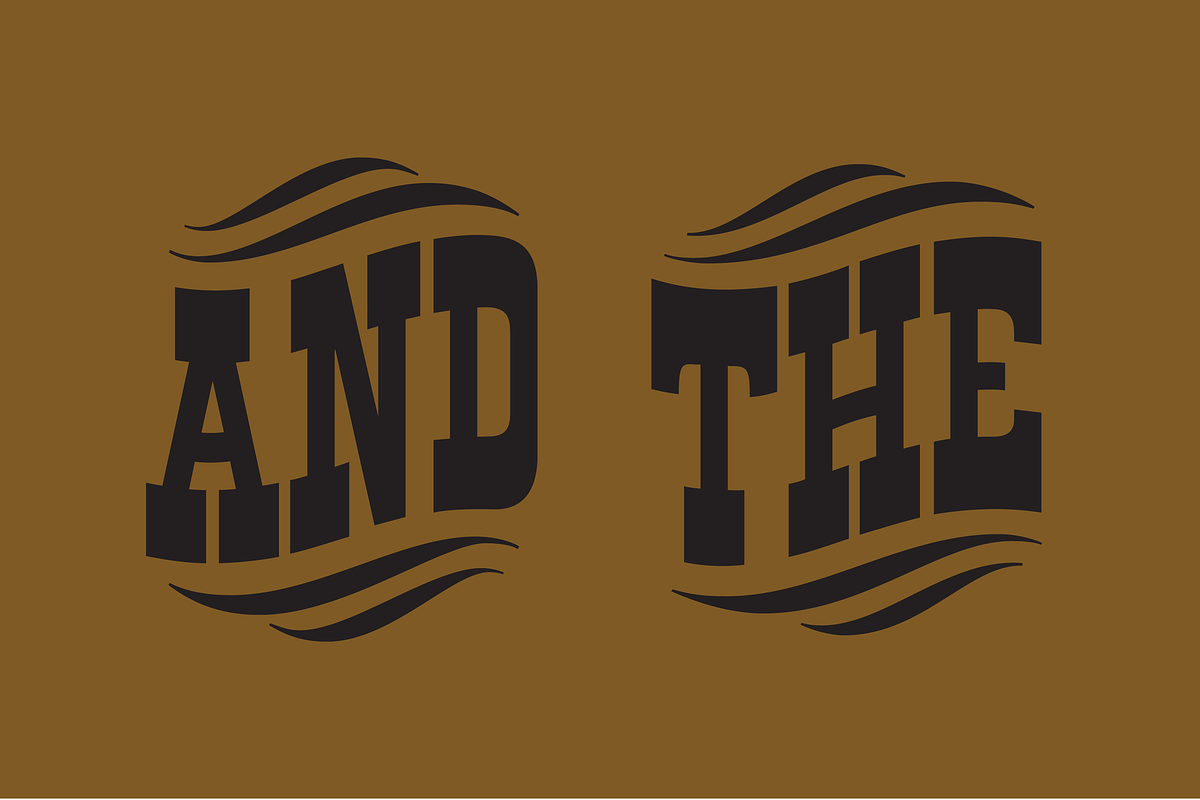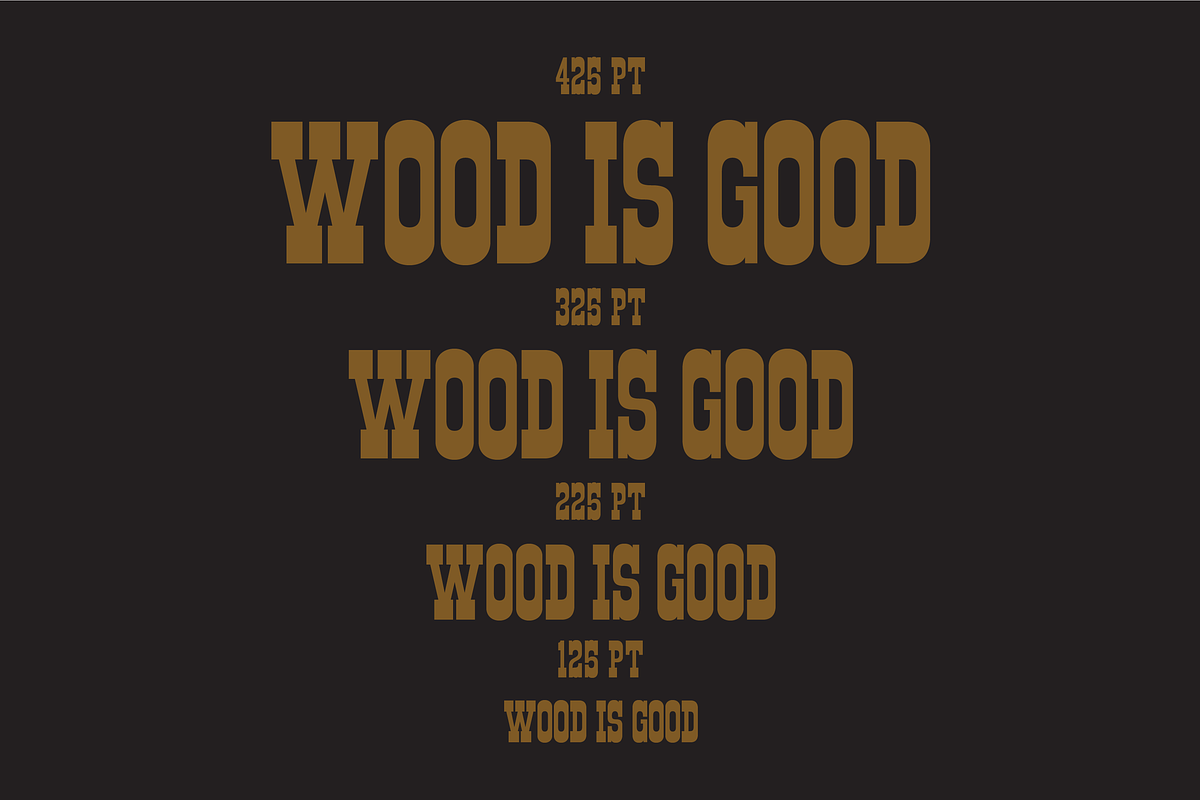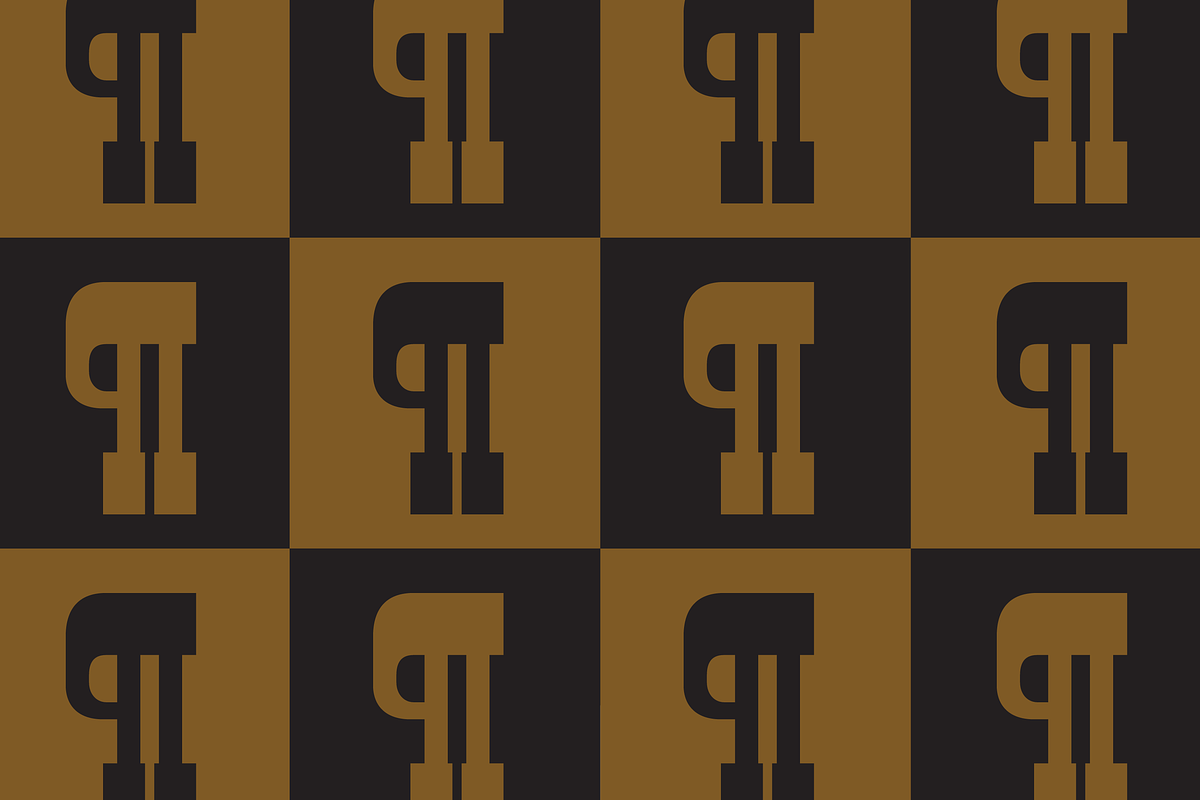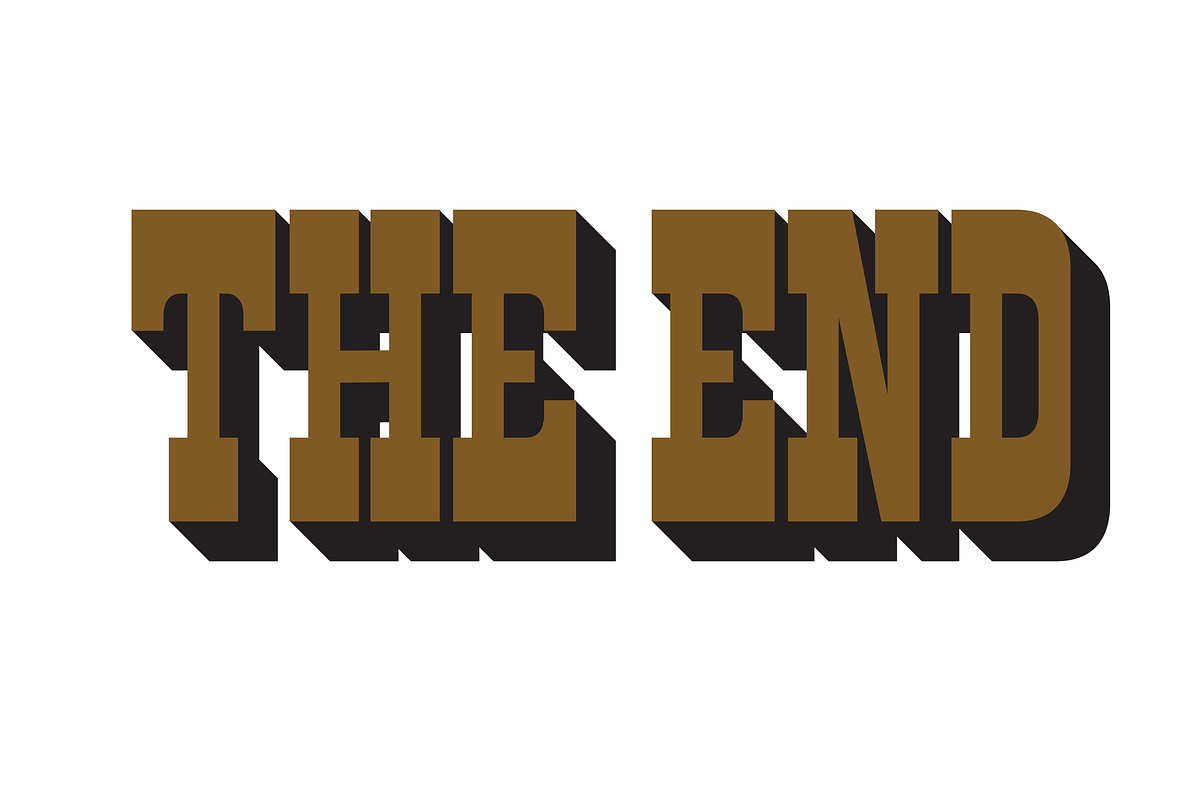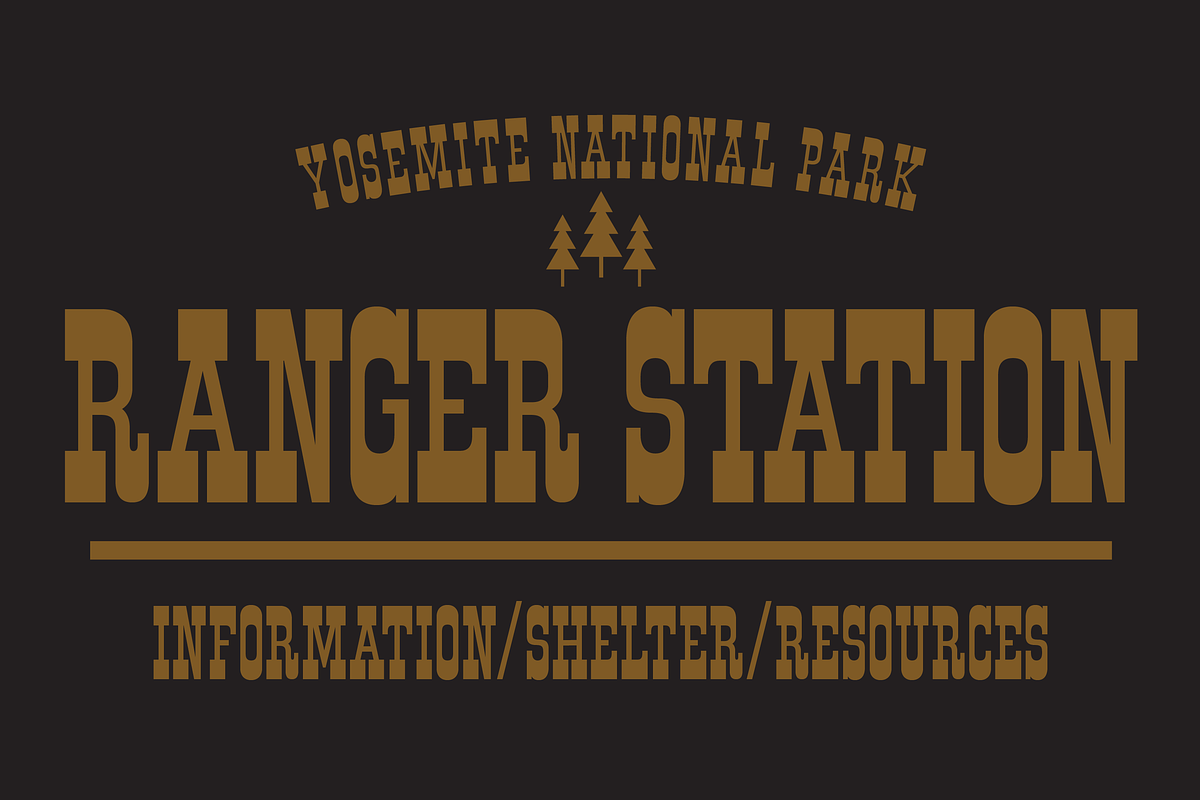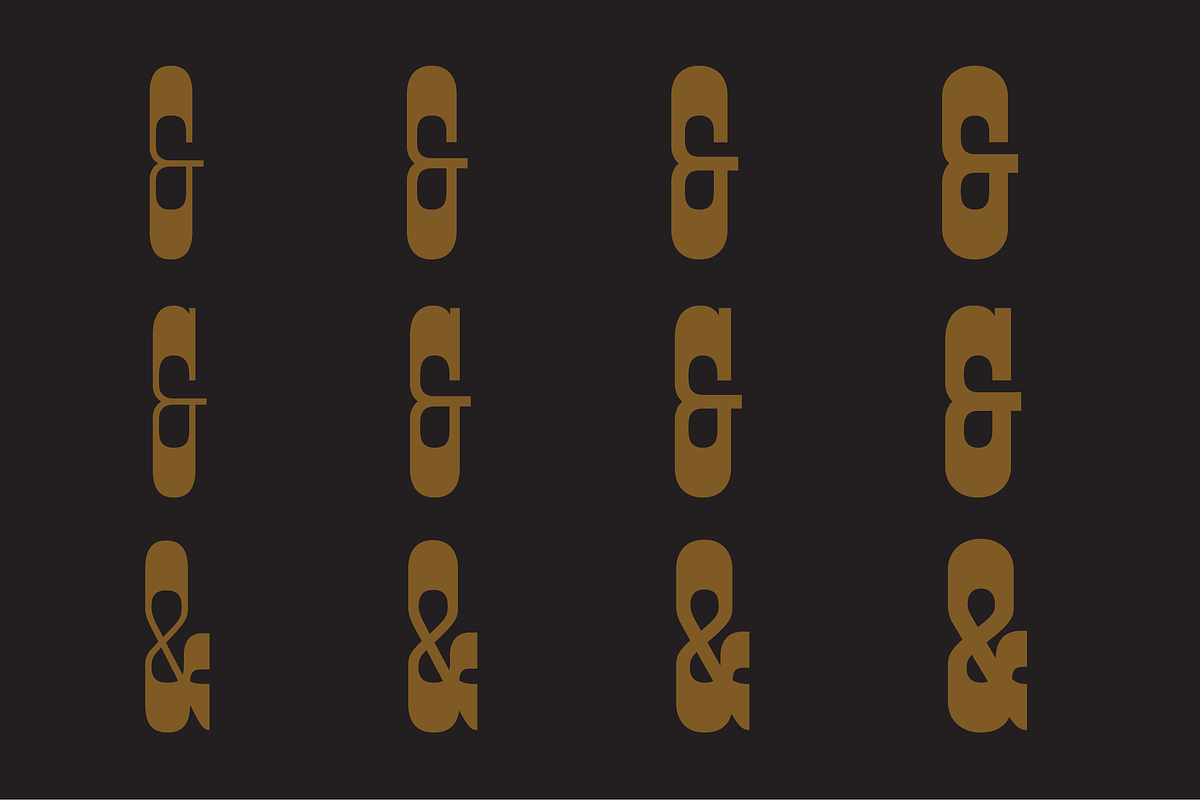
Lumber Co.
Inspired by signage observed from the road during a vacation in Ojai, California. The Lumber Co. family represents the best qualities (and charm) of a western slab serif. It is bold and rugged yet playful as it draws on a rich visual heritage without feeling dated. It makes an excellent choice for bold headlines – both physically and digitally.
No matter how you use it – Lumber Co. will charm even the most modern viewer.
Lumber Co. is a fully featured font family made up of four weights that included upper and lowercase, numerals and a wide spectrum of accented characters (Eastern, Central and Western European).
- Upper and Lowercase
- Four Weights
- Eastern, Western and Central European Accents
- Numerals 0-9
- Currency Symbols
- Standard Special Characters
- Special "And" & "The" glyphs
- Designed by Drew Melton